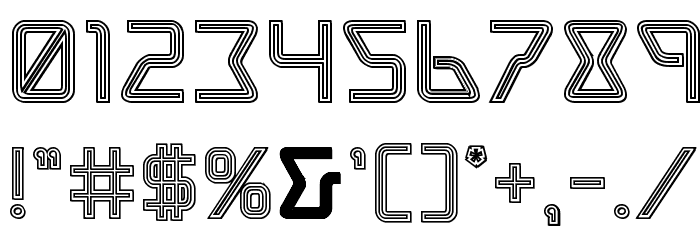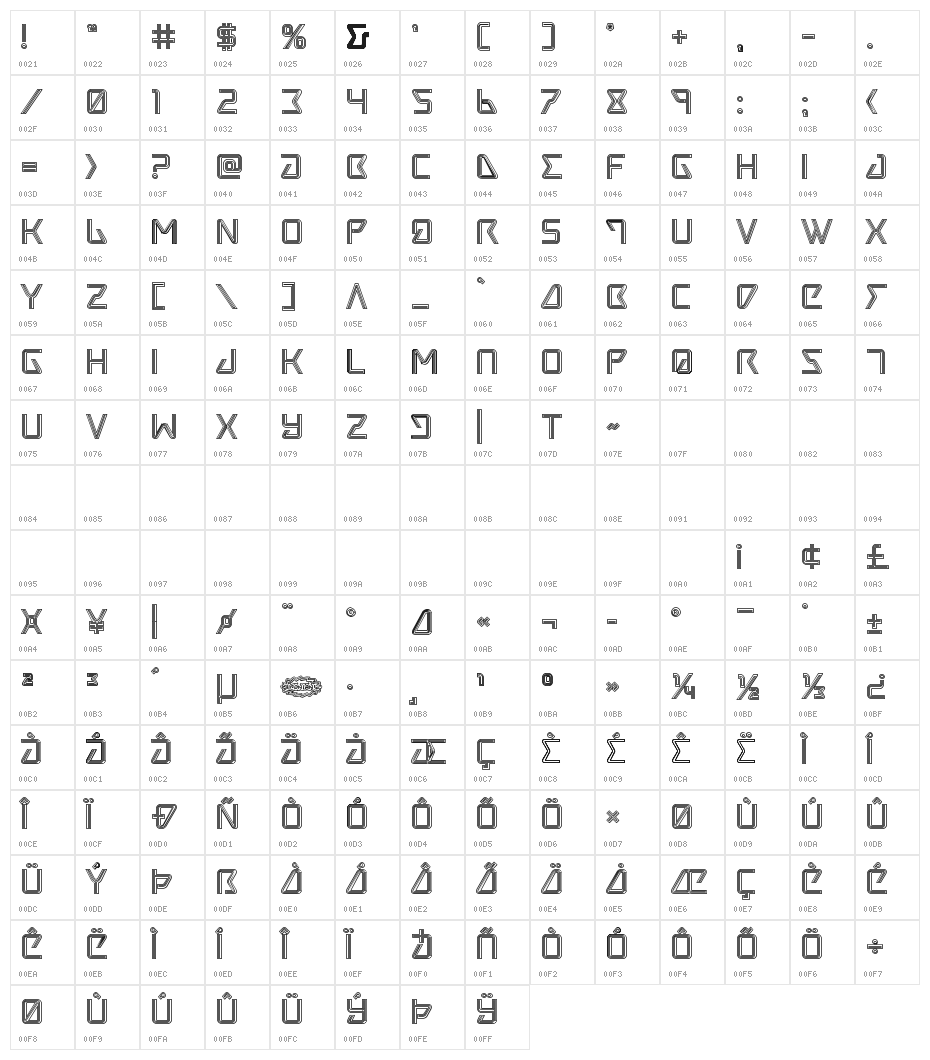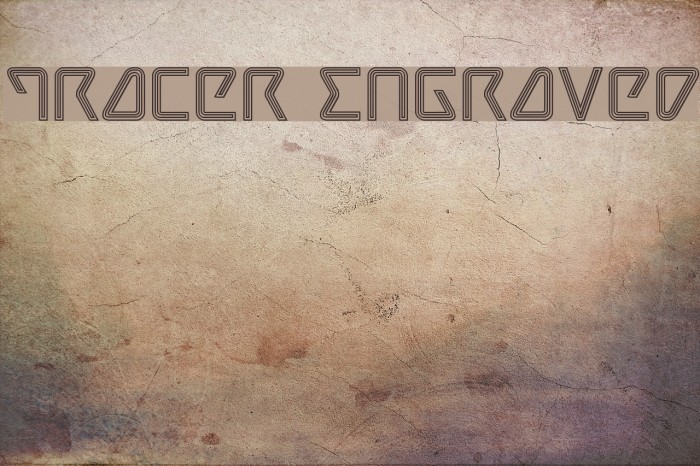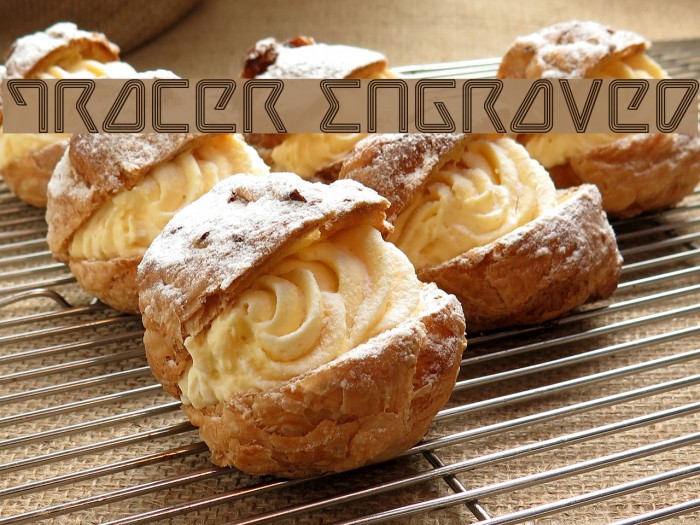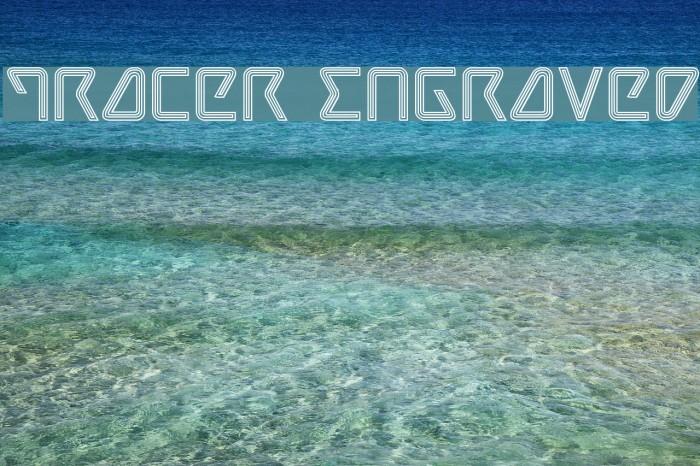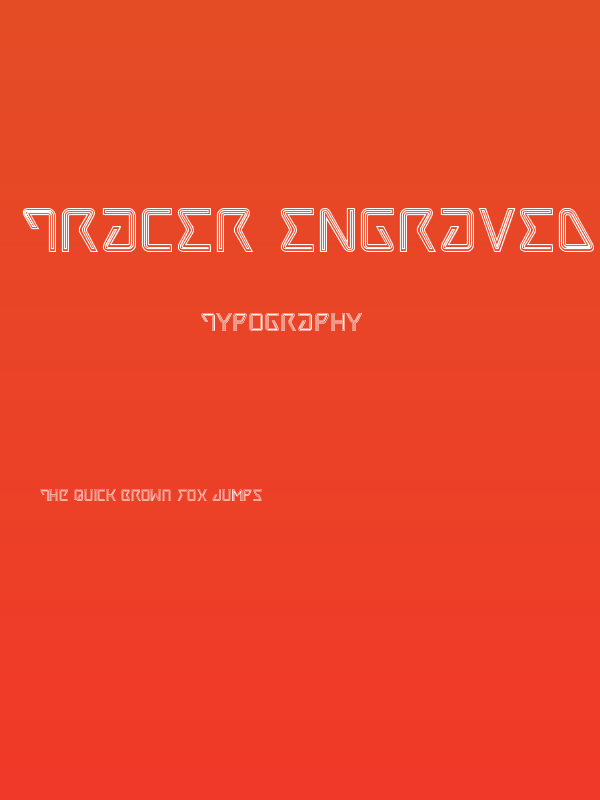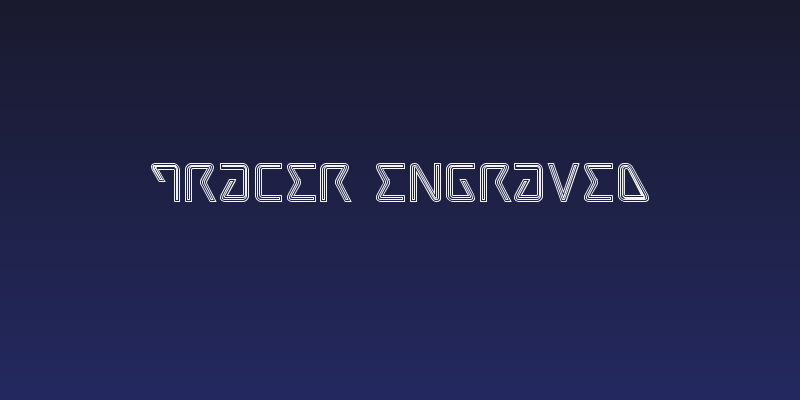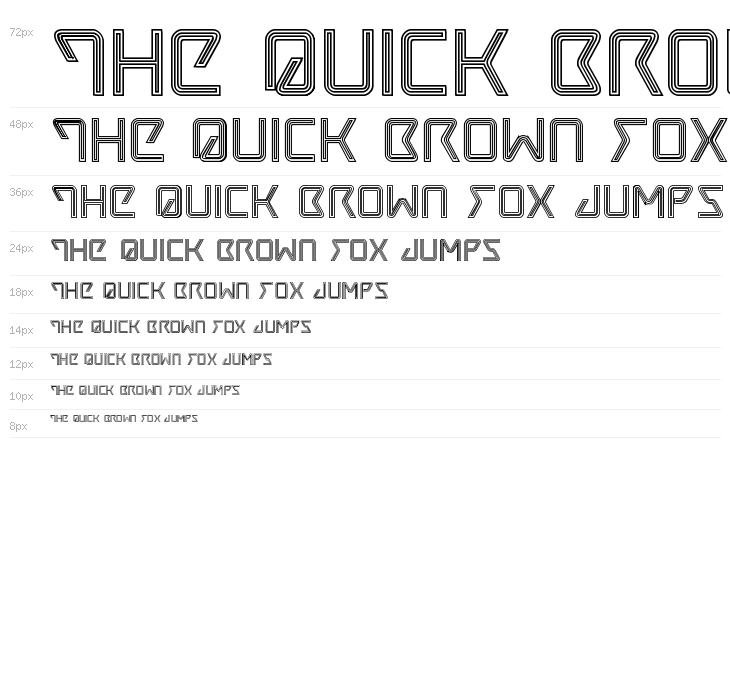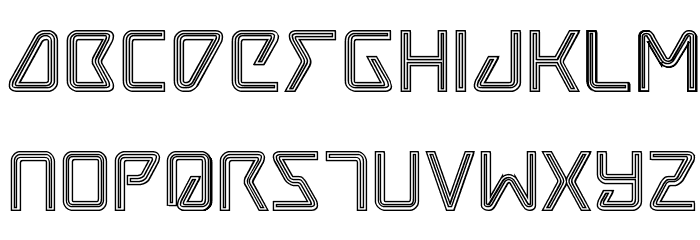
Tracer Engraved Font
Tracer Engraved Description
This font features a unique, futuristic design with an engraved appearance. The characters are outlined with multiple lines, creating a layered effect that gives depth and dimension. The geometric shapes and sharp angles contribute to its modern and technical aesthetic. Each letter and number is distinct, with a consistent pattern that maintains readability while offering a decorative flair. The special characters complement the overall style, making it suitable for creative and innovative projects.
| Proposed Projects | Ideal for sci-fi themed designs, technology branding, video game titles, and modern posters. |